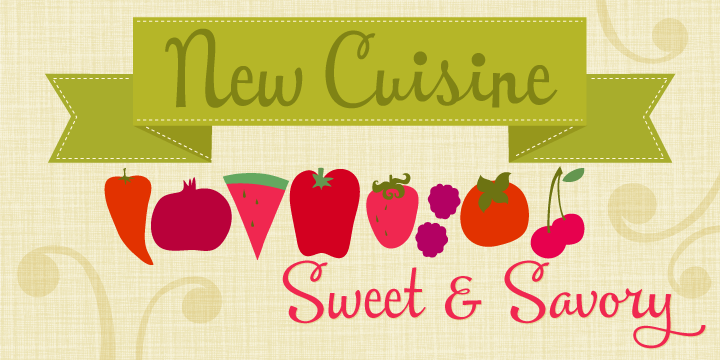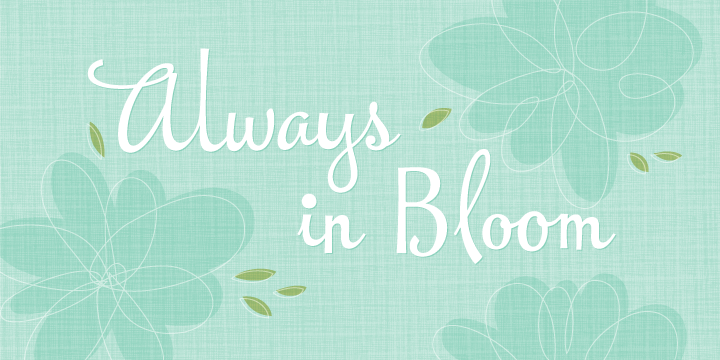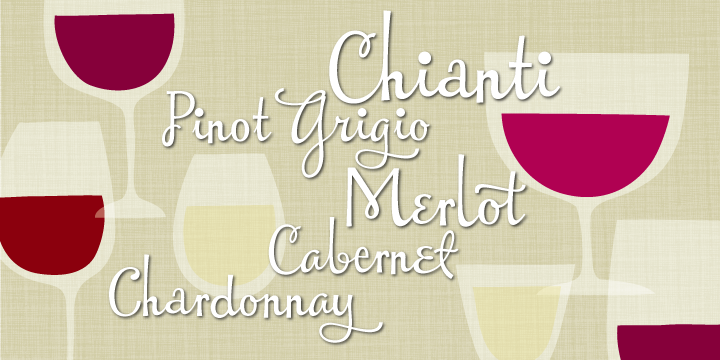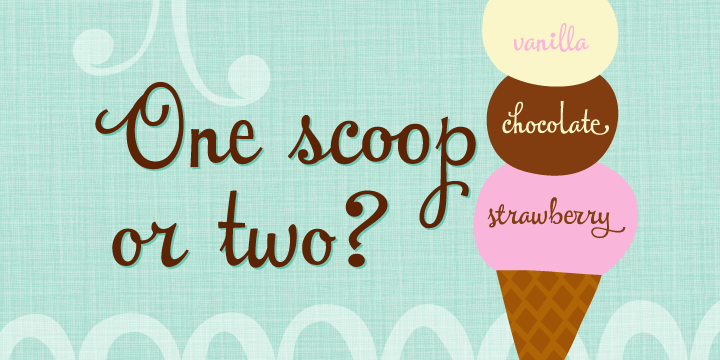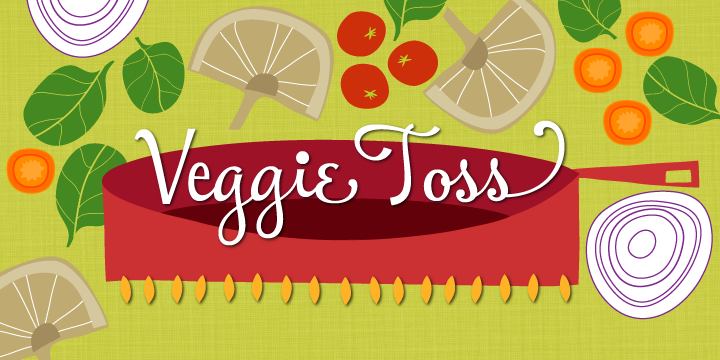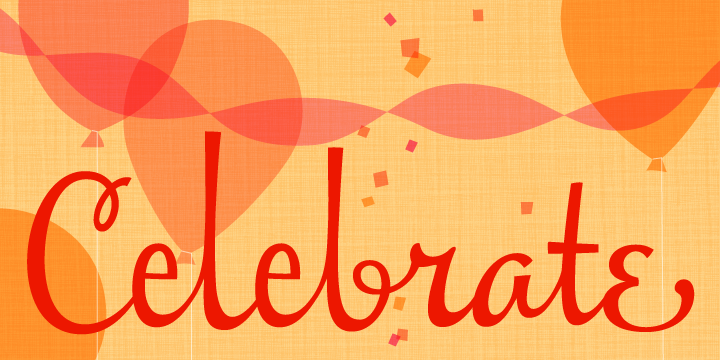
Under the hood of New Cuisine lie precise connections, unique ligatures and alternates, and OpenType programming to orchestrate it all. Because of this, typesetting turns into a simple and playful experience. Also included are a simple fraction feature as well as Central European language support.